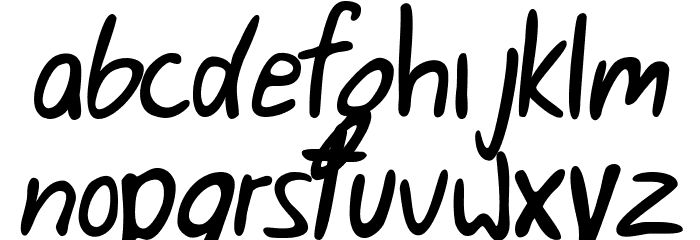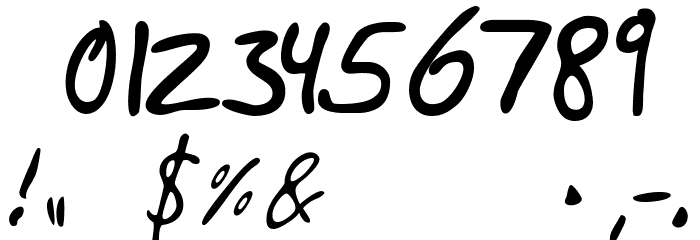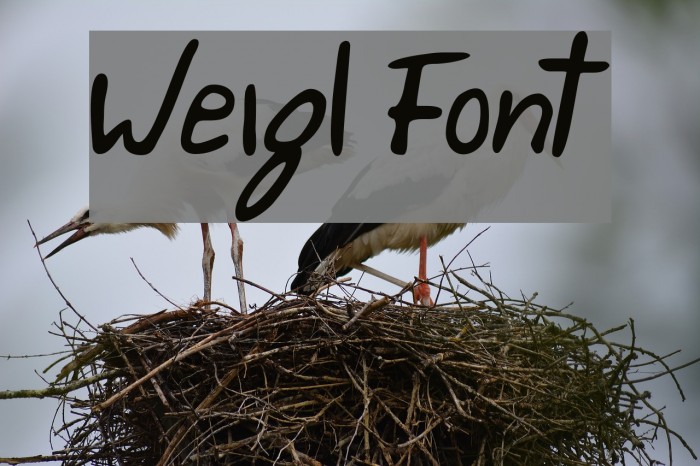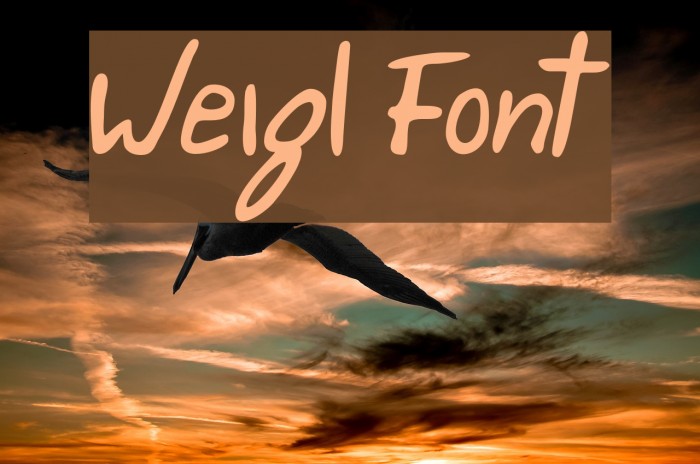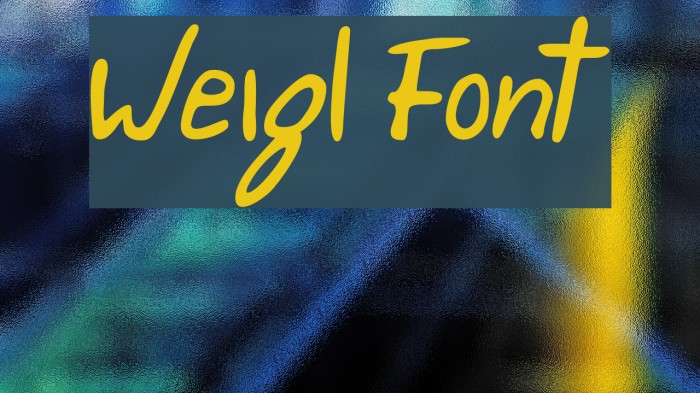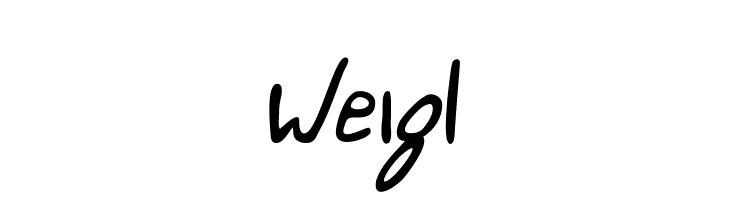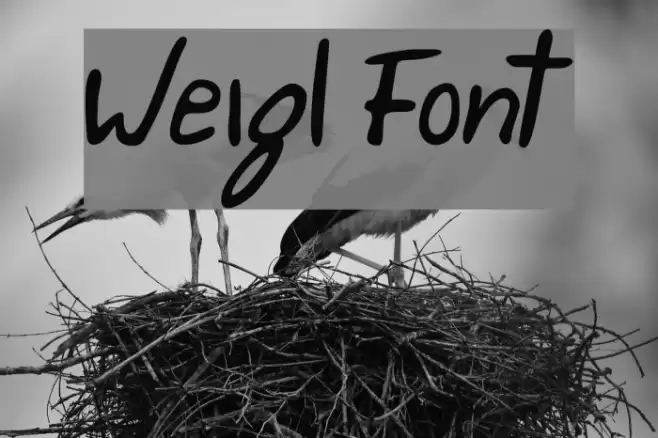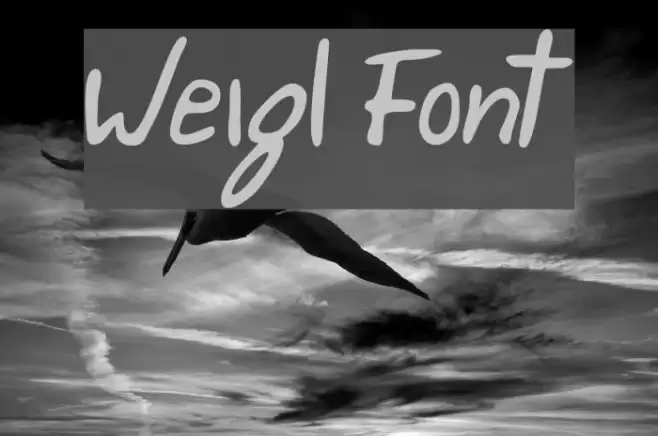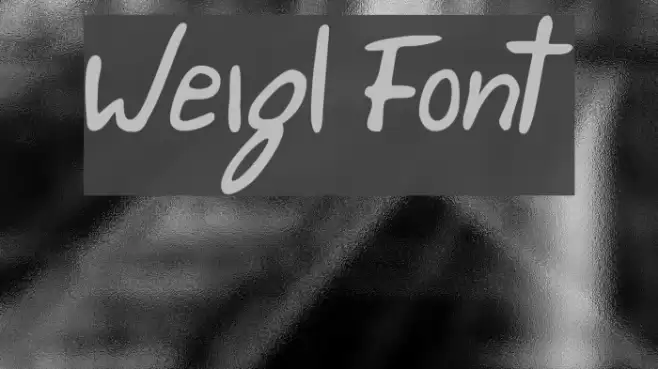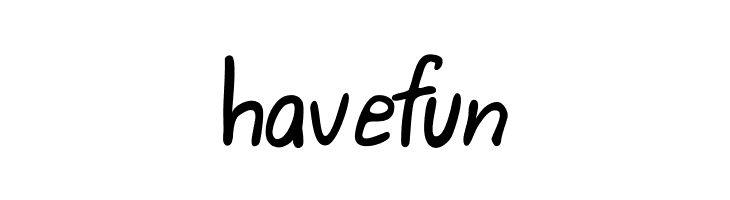
Weigl Font
This font exhibits a lively and dynamic handwritten style, characterized by its fluid and slightly irregular strokes that give it a personal touch. The letters are bold and expressive, with a noticeable slant that adds to the casual and informal feel. The uppercase and lowercase letters maintain a consistent style, with rounded edges and varying stroke widths that enhance its handwritten appearance. The numerals and special characters are equally expressive, maintaining the playful and energetic vibe of the font. This font is ideal for projects that require a personal and approachable tone.
A lively and dynamic handwritten font with bold, expressive strokes.
- Proposed Projects: Greeting cards, personal branding, social media graphics, and informal invitations.
- Overall Style: Casual and playful
- Use Case: Logos, headlines, and creative projects.